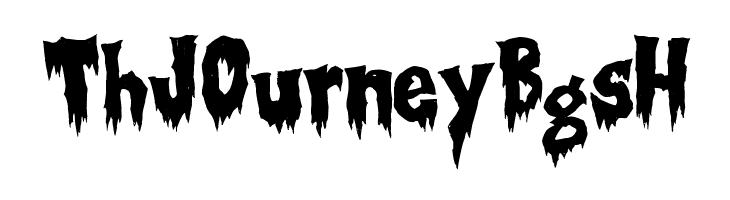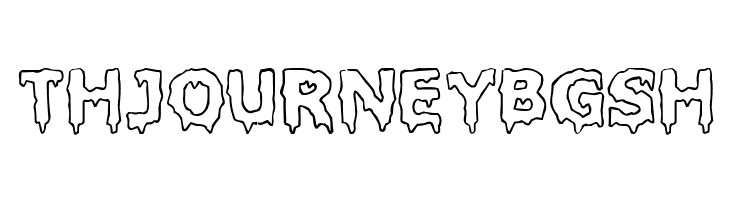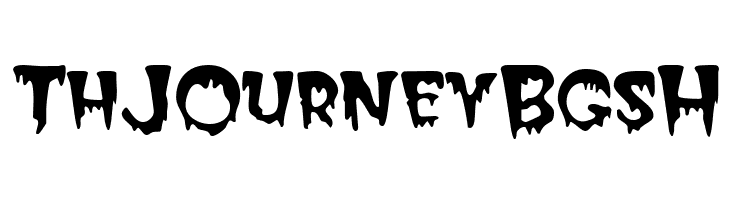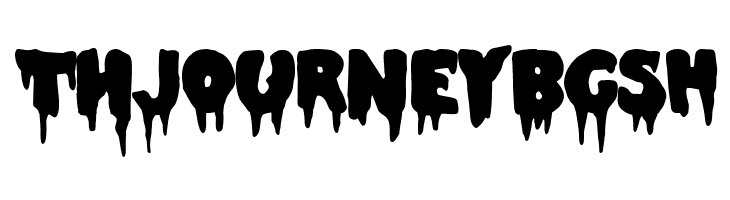
A whimsical, decorative font with curly, looping strokes and artistic embellishments.
A classic, elegant script font with sweeping curves and ornate details.
A dynamic, windswept font with sweeping curves and sharp edges.
A bold, dripping font with a unique, edgy style.
A playful and whimsical font with curly, looping strokes and consistent width.
A bold, calligraphic font with expressive, sweeping strokes.
A bold, dripping font with a spooky, playful style.
A bold, playful font with a dripping, liquid-like effect, perfect for spooky themes.
A bold, dripping font with a playful, liquid-like appearance.
A bold, playful font with a spooky, dripping effect ideal for horror themes.
A bold, dripping font perfect for spooky or playful designs.
A bold, dripping font with a playful, eerie style perfect for spooky themes.
A flowing, cursive font with elegant, sweeping strokes and a handwritten appearance.
A flowing, cursive font with elegant, sweeping lines and ornate uppercase letters.
A dynamic, cursive font with elegant, sweeping strokes.
A modern blend of Roman and Uncial styles with bold, sweeping curves and sharp serifs.
A bold, dynamic font with a modern-vintage flair and sweeping strokes.
A bold, dripping font with a spooky, playful style.
A playful, dripping effect font with bold, outlined characters.
A bold, dripping font with a playful yet edgy style.
A flowing, cursive font with elegant, sweeping strokes and a dynamic slant.
A dynamic and elegant script font with fluid, sweeping letterforms.
A bold and dynamic brush script font with sweeping strokes.
A whimsical, handwritten font with curly and looping strokes.
A whimsical and decorative font with curly, looping strokes and elegant flourishes.
A bold, urban-style font with a dripping cityscape effect.
A dynamic font with elongated vertical lines and a dripping effect.
A fluid and elegant script font with sweeping curves and graceful lines.
A calligraphic and modern font with sweeping curves and intricate details.